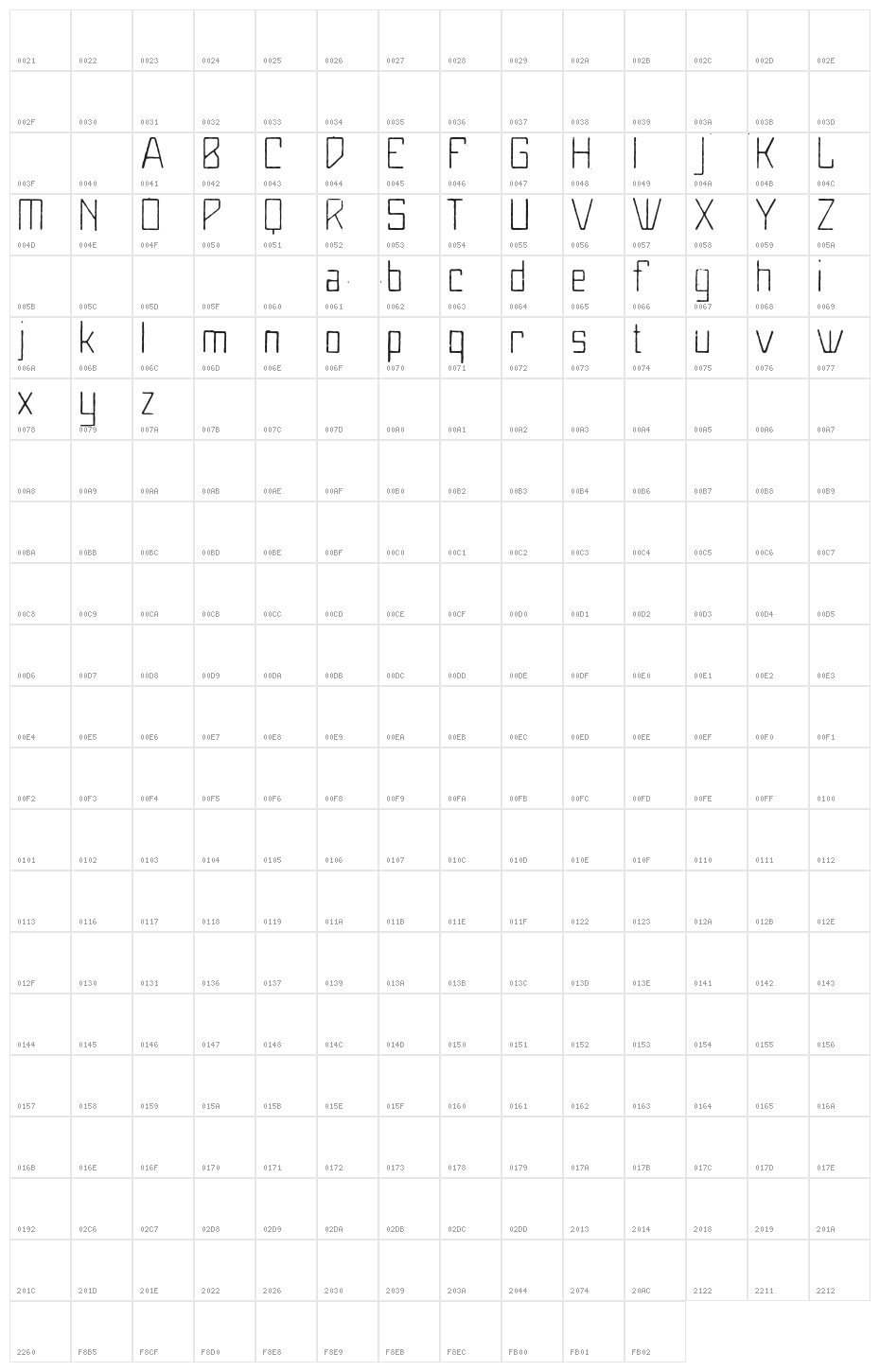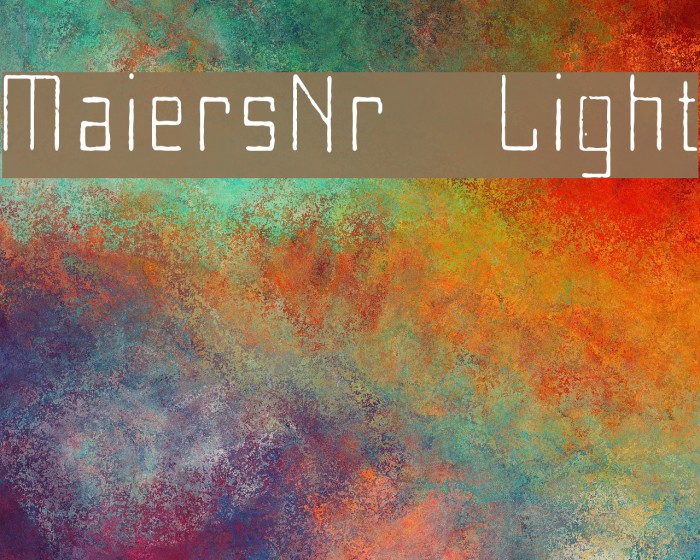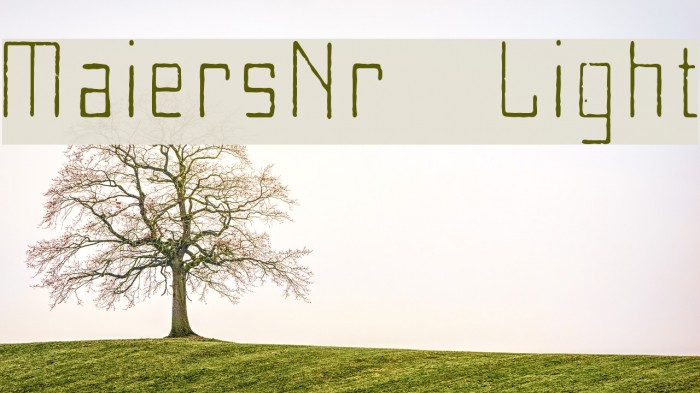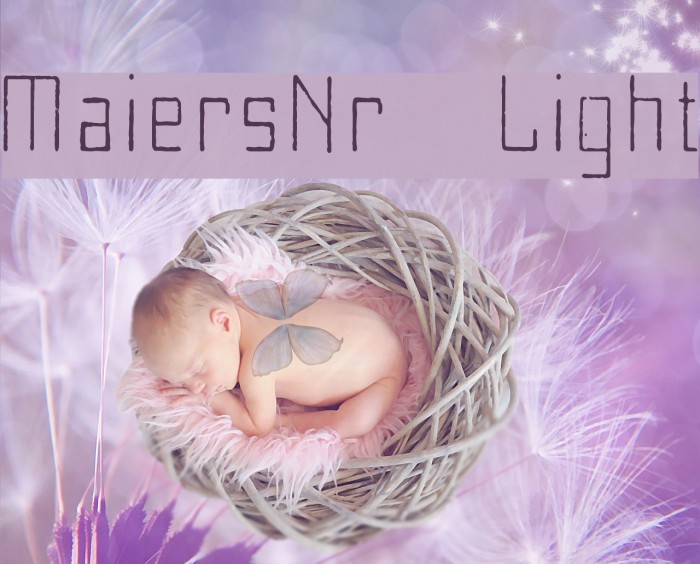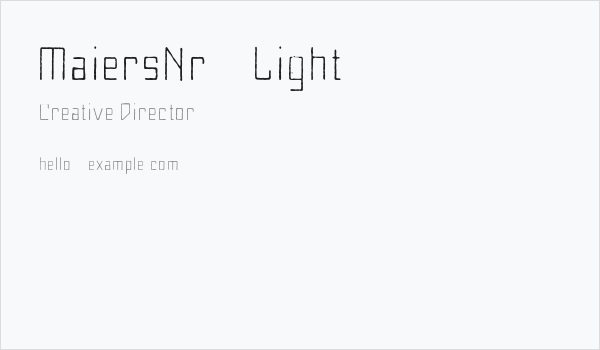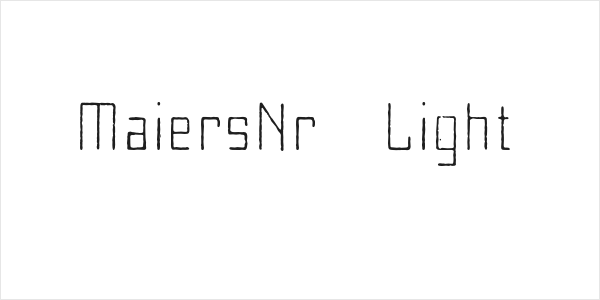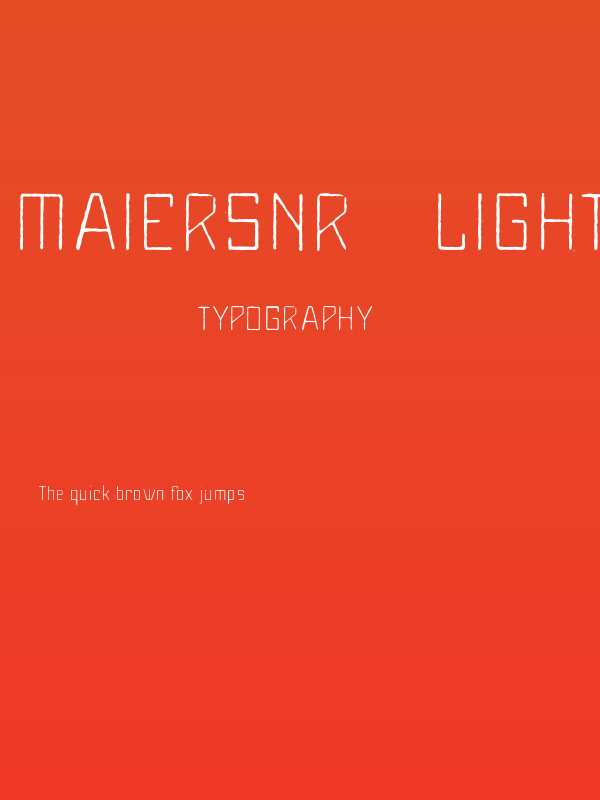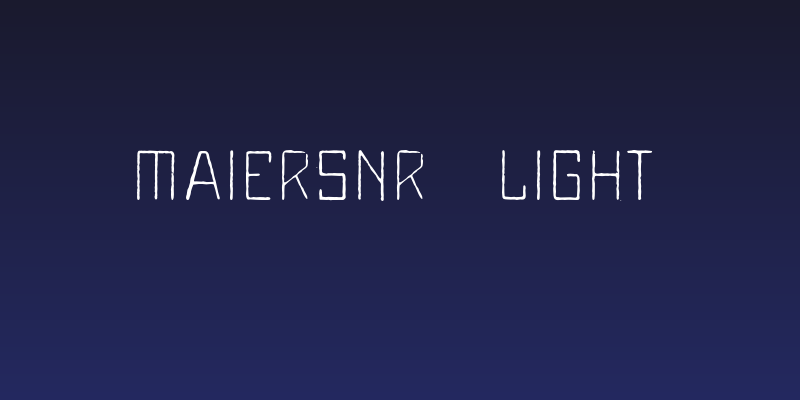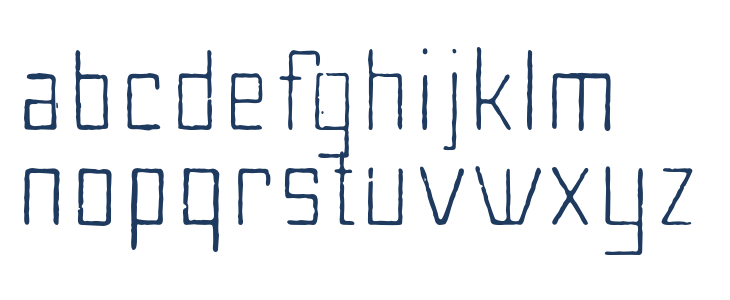
MaiersNr8-Light Font
MaiersNr8-Light Description
This font features a unique, hand-drawn aesthetic with a slightly irregular and organic appearance. The characters are constructed with thin, consistent strokes that give it a light and airy feel. The uppercase and lowercase letters maintain a uniform height, contributing to a cohesive look. The font's design incorporates subtle imperfections, adding a touch of personality and charm. Its geometric structure is softened by the hand-crafted style, making it suitable for projects that require a blend of modernity and a personal touch. The numerals and special characters are consistent with the overall design, ensuring a harmonious appearance across all text elements.
| Use Case | Logos, Artistic projects, Invitations |
| Proposed Projects | Ideal for creative projects such as invitations, greeting cards, and artistic posters. It can also be used for branding that seeks a personal and approachable feel. |